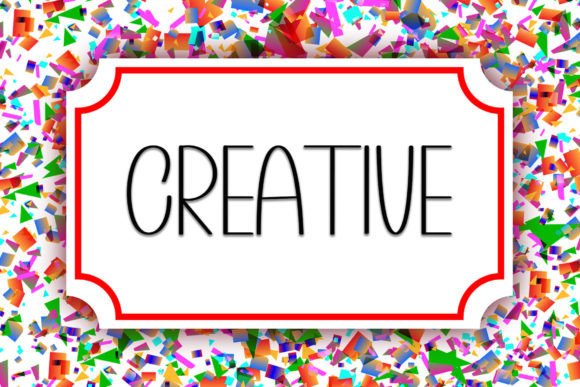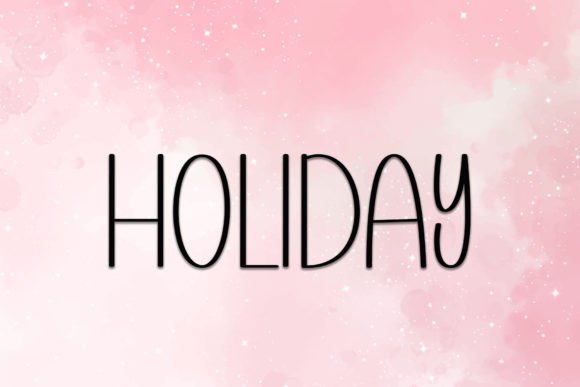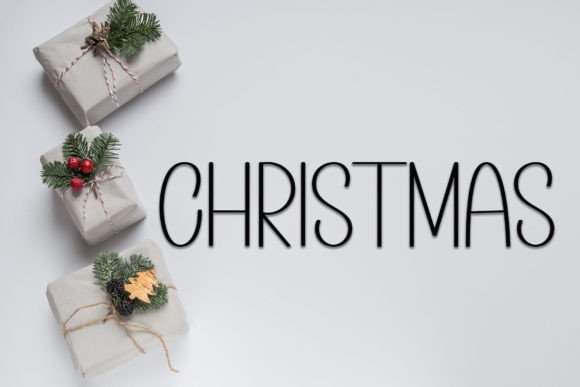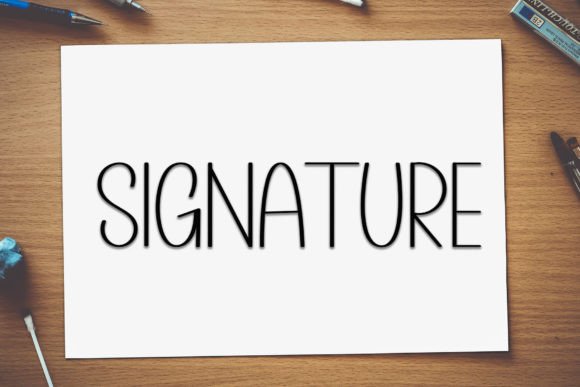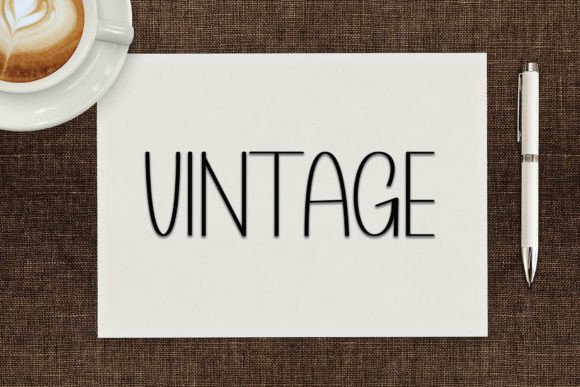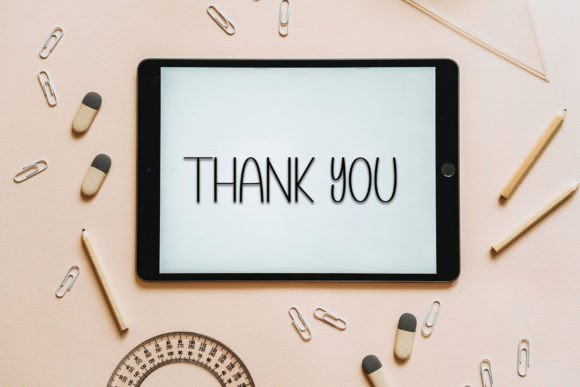
Introducing Grinch Font: Elevate Your Designs with a Timeless Classic
Are you a designer or crafter looking for a stylish and contemporary font to take your projects to the next level? Look no further than Grinch Font, a beautiful handwritten font inspired by timeless classic calligraphy. With its impeccable form and balanced design, Grinch Font is the perfect addition to any creative endeavor.
What is Grinch Font?
Grinch Font is a modern handwritten font that exudes a sense of sophistication and elegance. Its design is rooted in traditional calligraphy, yet it boasts a fresh and contemporary atmosphere that will make your projects stand out. The font’s balanced and varied characters ensure that your text will be easy to read and visually appealing.
Key Features of Grinch Font
- Handwritten Style: The font’s handwritten style gives it a personal and unique touch, making it perfect for projects that require a human feel.
- Contemporary Atmosphere: Grinch Font’s modern design ensures that your projects will look fresh and up-to-date.
- Impeccable Form: The font’s characters are carefully crafted to ensure that they are balanced and visually appealing.
Why Choose Grinch Font?
Grinch Font is an excellent choice for designers and crafters who want to add a touch of elegance and sophistication to their projects. Here are a few reasons why:
- Versatility: Grinch Font is suitable for a wide range of projects, from branding and advertising to packaging and digital media.
- High-Quality Design: Grinch Font is designed to high standards, ensuring that your projects will look professional and polished.
How to Use Grinch Font in Your Projects
Grinch Font is a versatile font that can be used in a variety of projects. Here are a few ideas to get you started:
- Branding and Advertising: Use Grinch Font to create eye-catching logos, business cards, and advertising materials.
- Packaging: Add a touch of elegance to your product packaging with Grinch Font.
- Digital Media: Use Grinch Font to create engaging social media graphics, blog posts, and website content.
Tips for Getting the Most Out of Grinch Font
Here are a few tips to help you get the most out of Grinch Font:
- Experiment with Different Sizes: Grinch Font looks great in a variety of sizes, from large headings to small body text.
- Play with Ligatures: The font’s ligatures and glyphs can add an extra layer of creativity to your designs.
- Pair with Other Fonts: Grinch Font pairs well with a variety of other fonts, so don’t be afraid to experiment with different combinations.
Grinch Font is a stylish and contemporary handwritten font that is perfect for designers and crafters looking to elevate their projects. With its impeccable form, balanced design, and PUA encoding, Grinch Font is a versatile font that can be used in a wide range of applications. Whether you’re creating branding materials, packaging, or digital media, Grinch Font is sure to make your projects stand out.